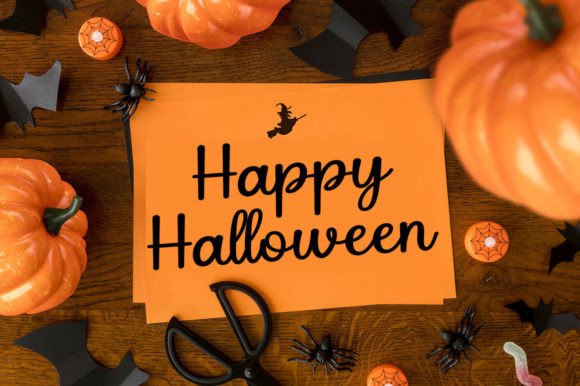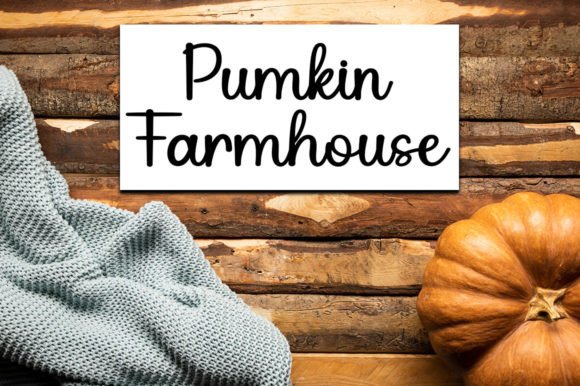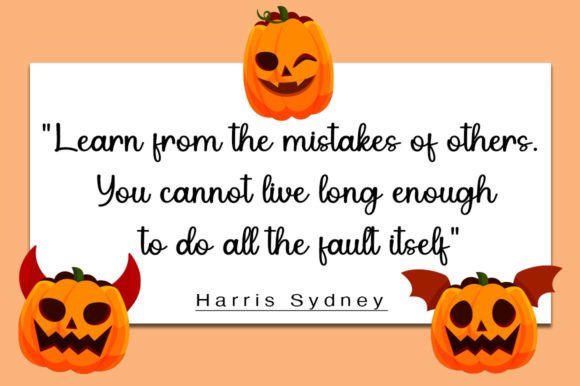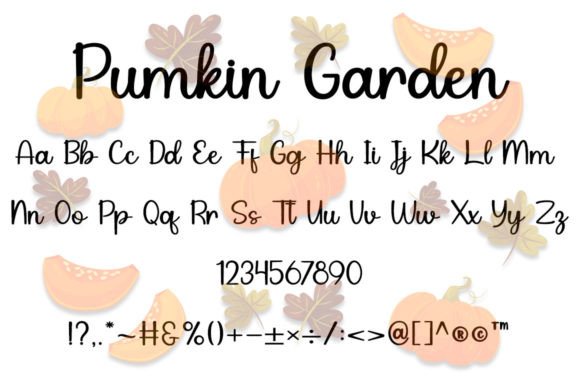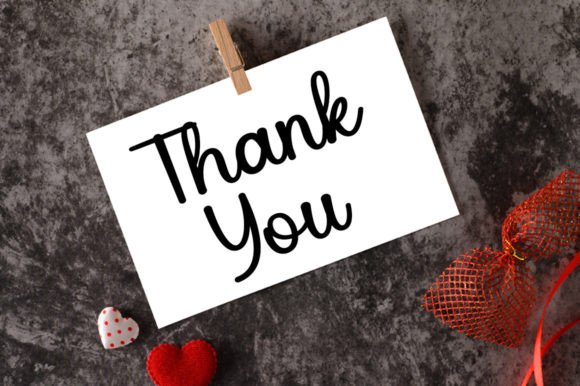
Pumkin Garden Font
The Pumkin Garden Font Download is a graceful and modern handwritten script typeface designed to elevate any creative project. With flowing strokes and a natural rhythm, it blends sophistication with charm, making it perfect for both personal and professional use. Whether you’re designing invitations, logos, or web graphics, this font adds timeless beauty and elegance.
A Graceful Handwritten Script
The Pumkin Garden script font combines smooth handwritten strokes with balanced proportions. As a result, it feels modern yet classic. Furthermore, its versatile design adapts beautifully to different contexts, ensuring that it looks stunning across both digital and print projects.
Handwritten calligraphy always enhances stationery with a personal touch. The Pumkin Garden Font is ideal for wedding invitations, thank you cards, seasonal greetings, and birthday notes. Because of its graceful strokes, every card feels stylish and heartfelt. In addition, it ensures your messages stand out with sophistication.
Branding and Logo Design with Pumkin Garden Font
Typography sets the tone for a brand’s identity. The Pumkin Garden handwritten font is an excellent choice for logos, packaging, and promotional materials. Its modern elegance makes brands look professional yet approachable. Therefore, it works especially well for lifestyle, beauty, and creative industries.
Posters, Quotes, and Editorial Projects
The Pumkin Garden Font Download also excels in posters, magazines, book covers, and inspirational quotes. Its flowing handwritten rhythm ensures readability while adding artistic flair. Consequently, it is a strong choice for editorial and marketing projects.
In today’s digital-first design space, fonts must be engaging and versatile. The Pumkin Garden typeface integrates seamlessly into Instagram posts, Pinterest graphics, YouTube thumbnails, and blogs. Because of its graceful handwritten energy, it ensures digital projects look stylish and captivating.
Why Designers Choose Pumkin Garden Typeface
Designers appreciate fonts that offer both usability and character. The Pumkin Garden handwritten script provides charm without compromising clarity. This makes it a favorite among professionals and hobbyists alike. Moreover, its timeless design ensures it stays relevant in future projects.